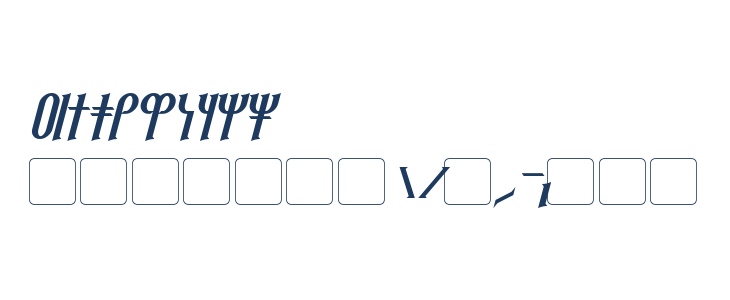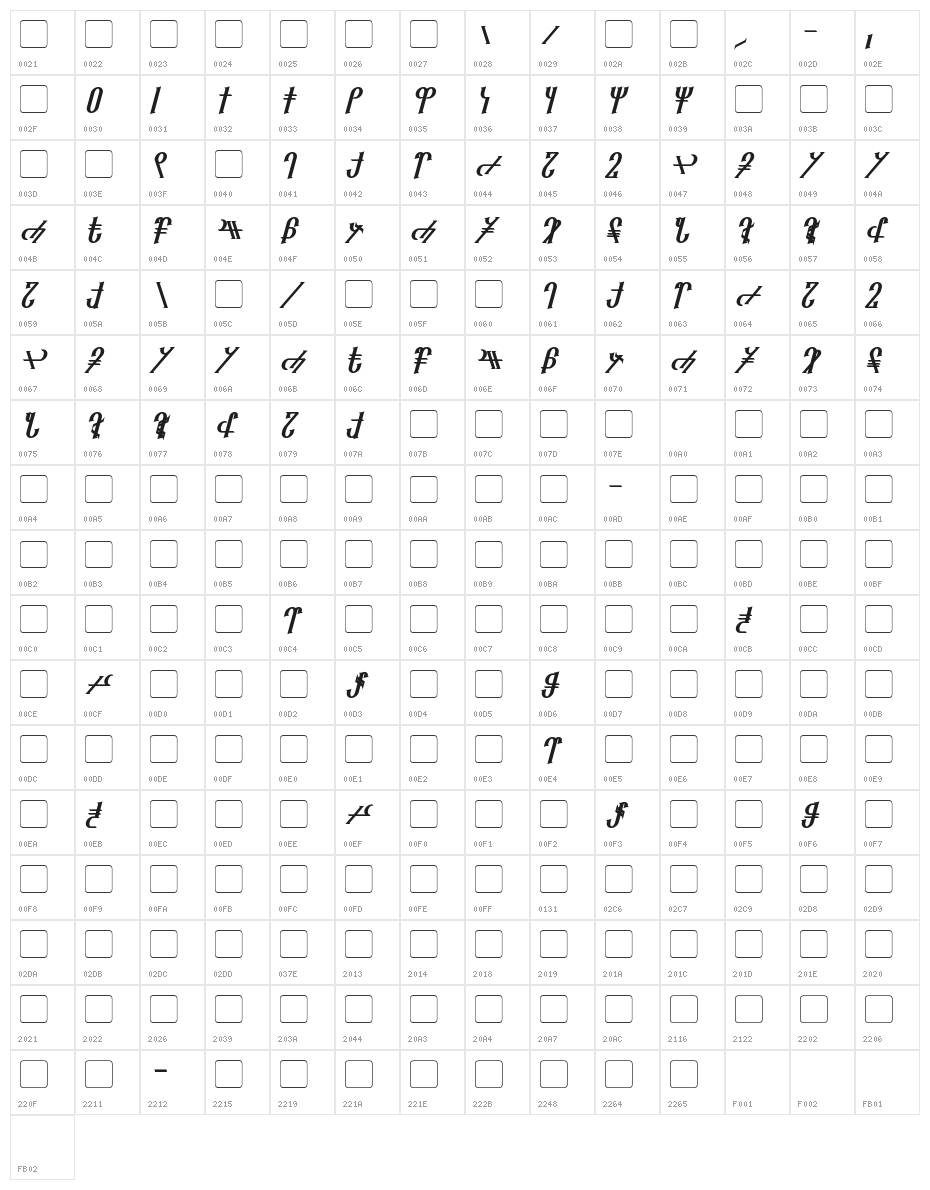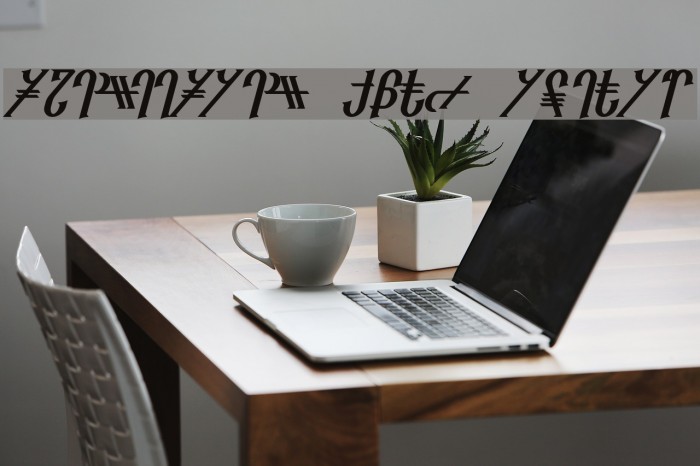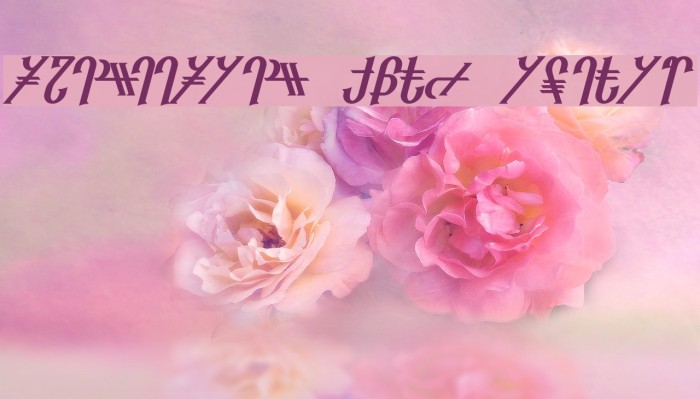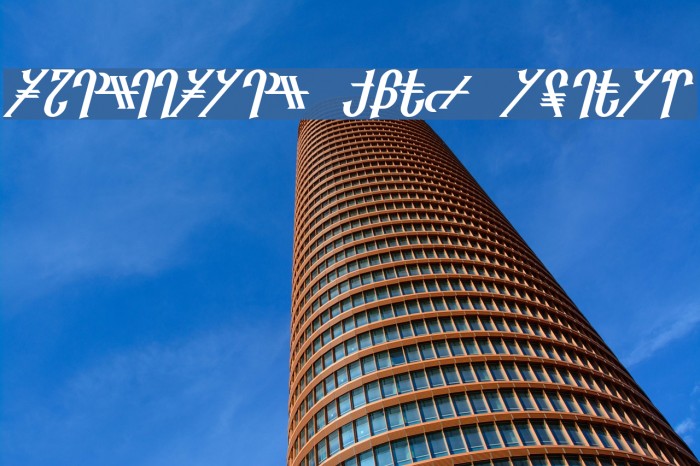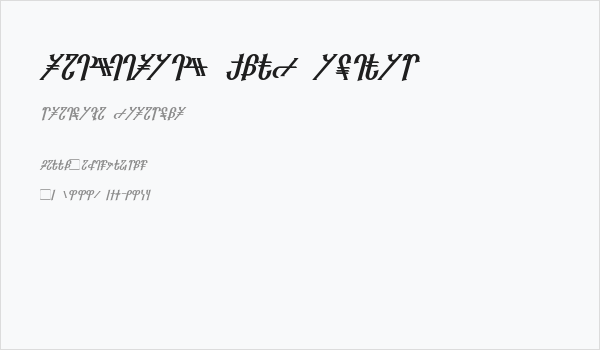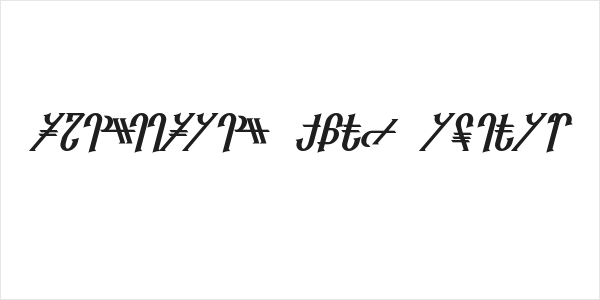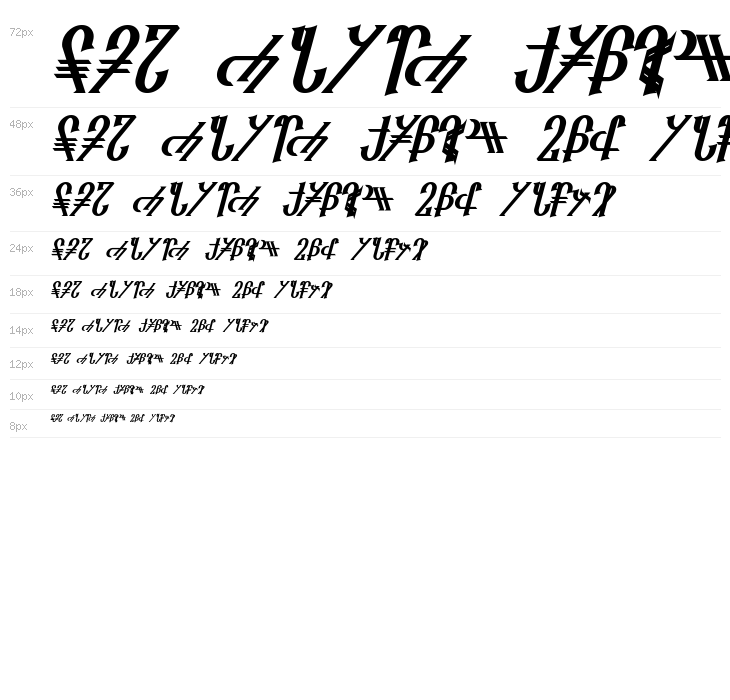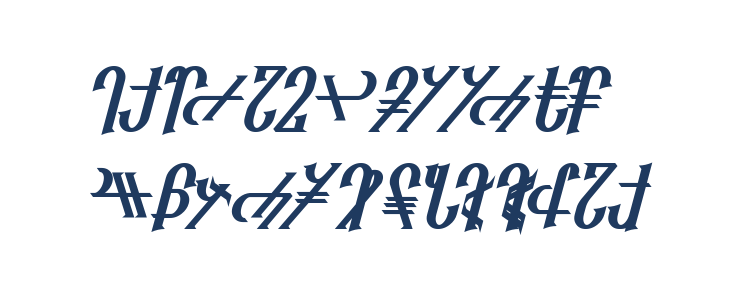
Reanaarian Bold Italic Font
Reanaarian Bold Italic Description
This font features a bold and italicized style with a distinctively modern and decorative flair. The characters are sharply angled, giving them a dynamic and energetic appearance. The strokes are thick, contributing to a high contrast between the thick and thin parts of the letters. This creates a striking visual impact, making it suitable for attention-grabbing designs. The font includes both uppercase and lowercase letters, numerals, and a selection of special characters. The character spacing is tight, enhancing the compact and cohesive look of the text. Overall, this font exudes a sense of boldness and creativity, making it ideal for projects that require a strong visual statement.